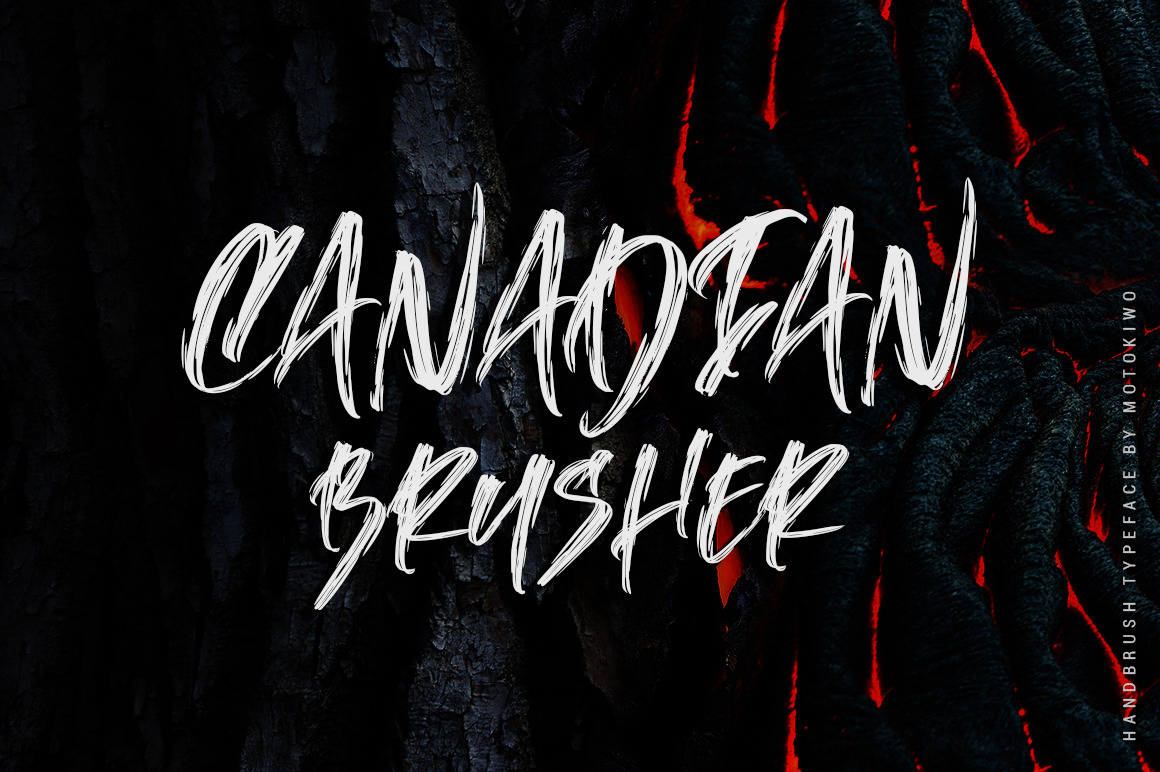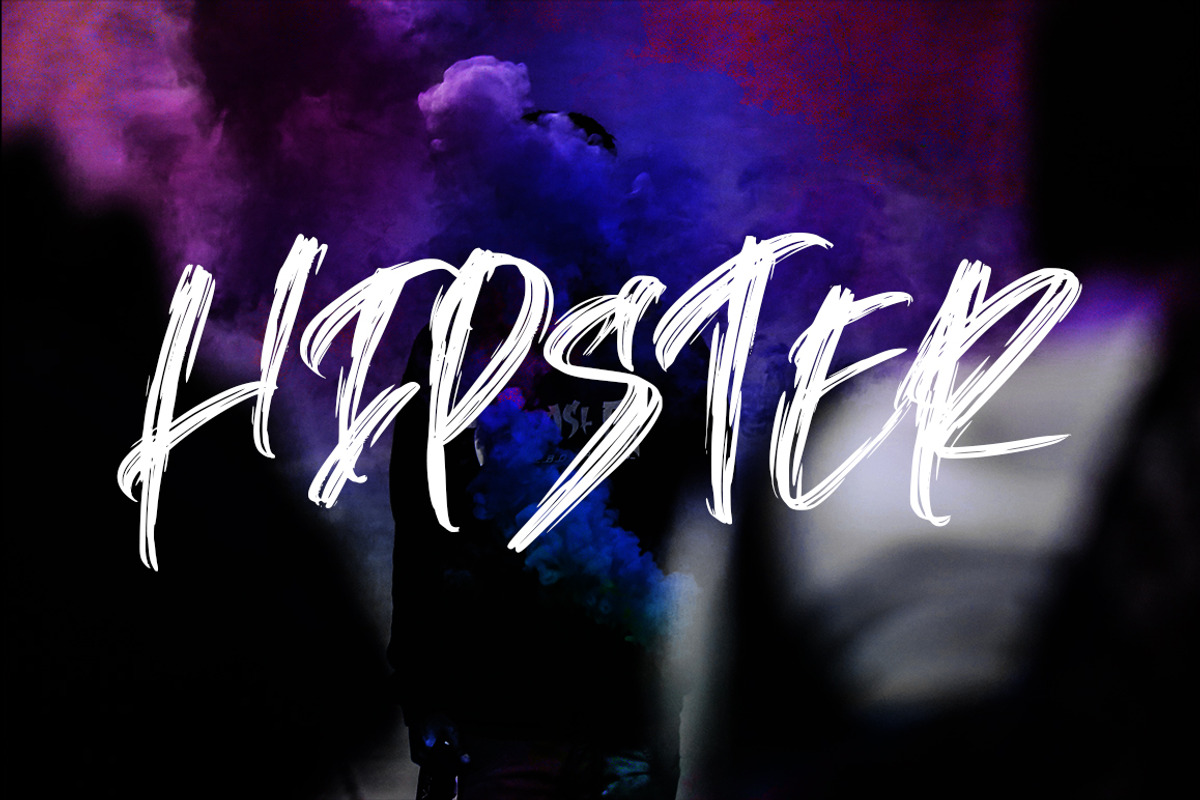
Canadian Brusher - Hipster Typeface
Canadian Brusher, hipster Hand-brush display font with stunning characters and texture. It’s all caps with numeral & punctuation and standard multilingual support. Very cool for youth generations project.